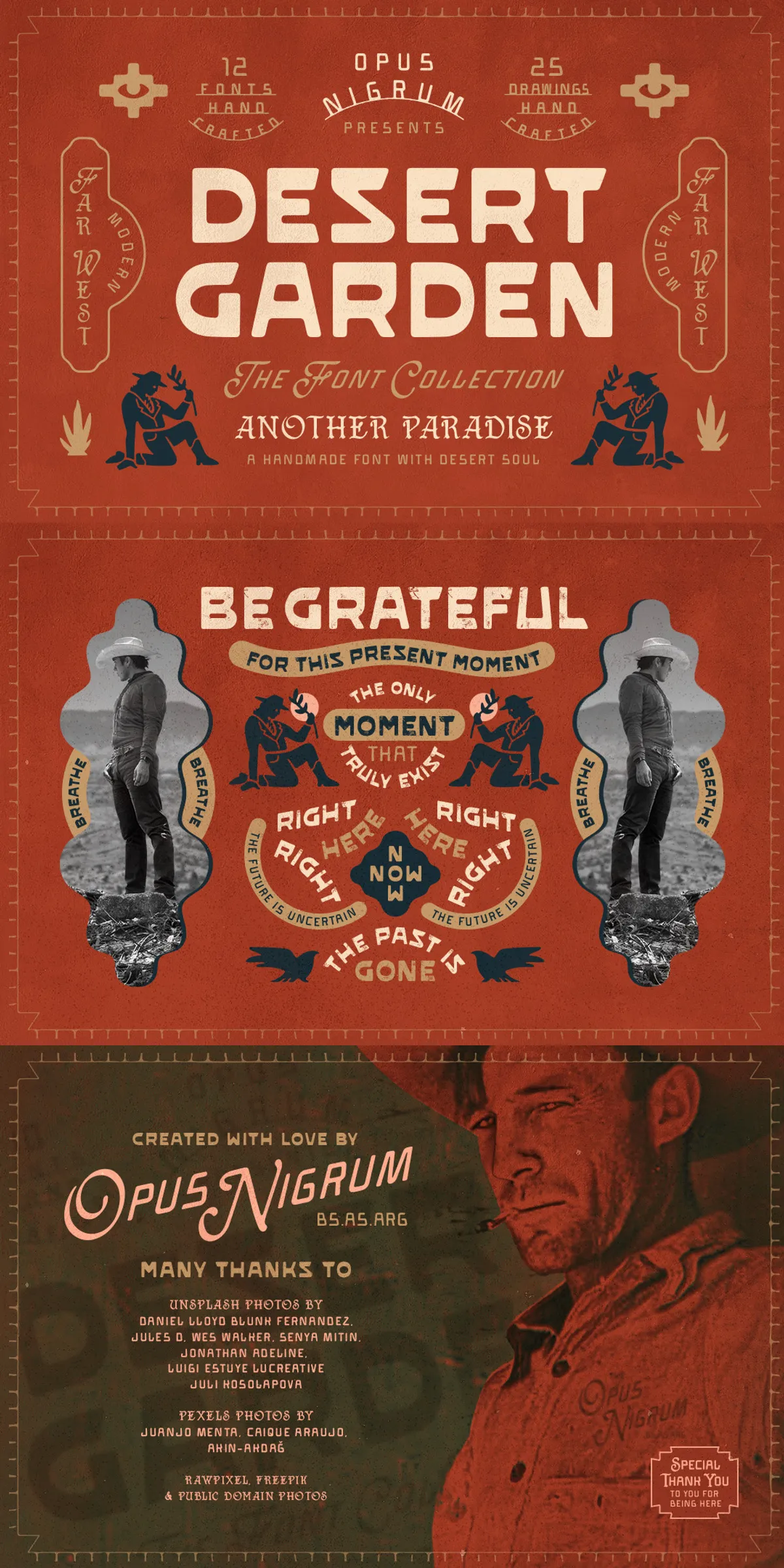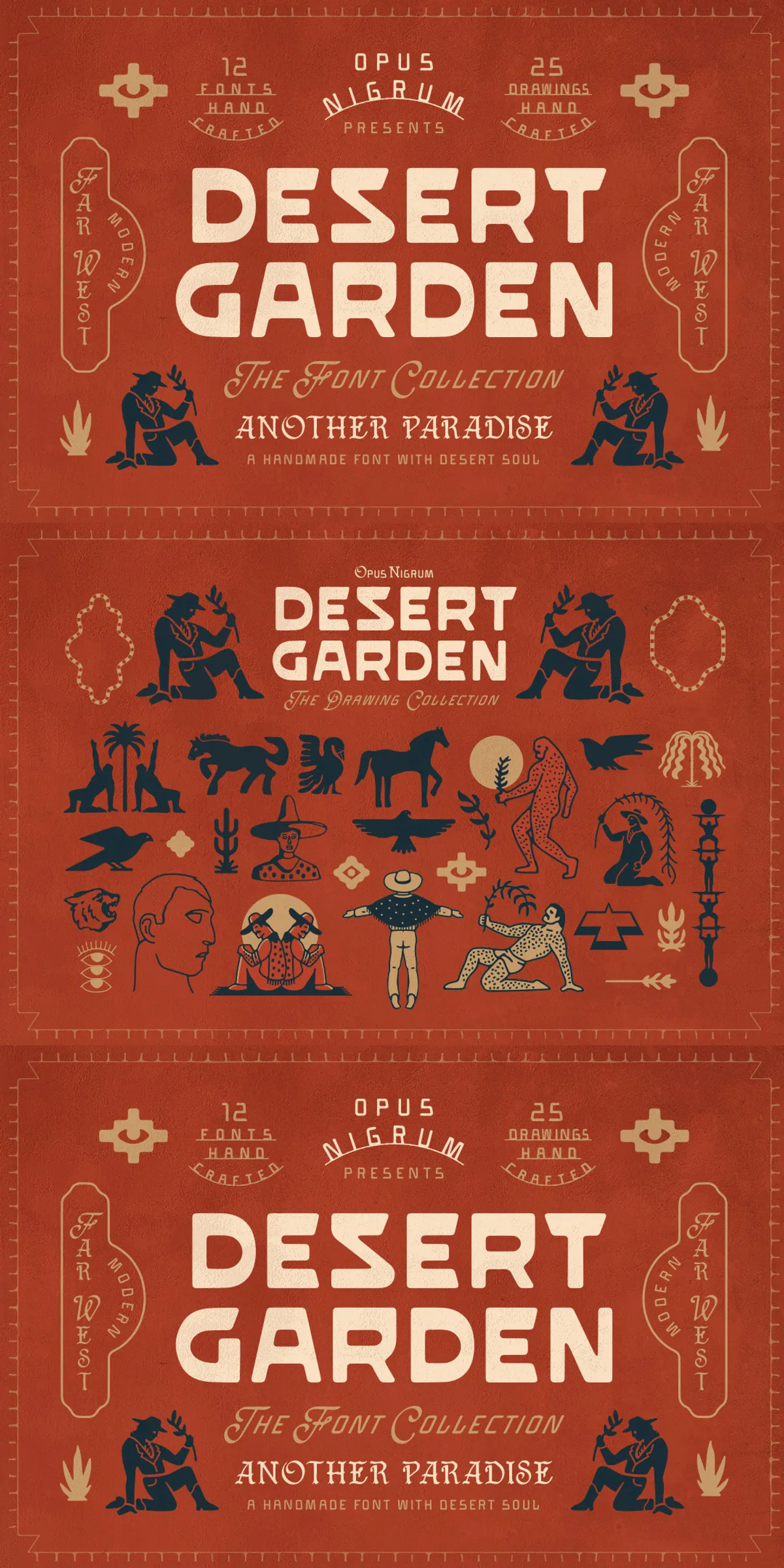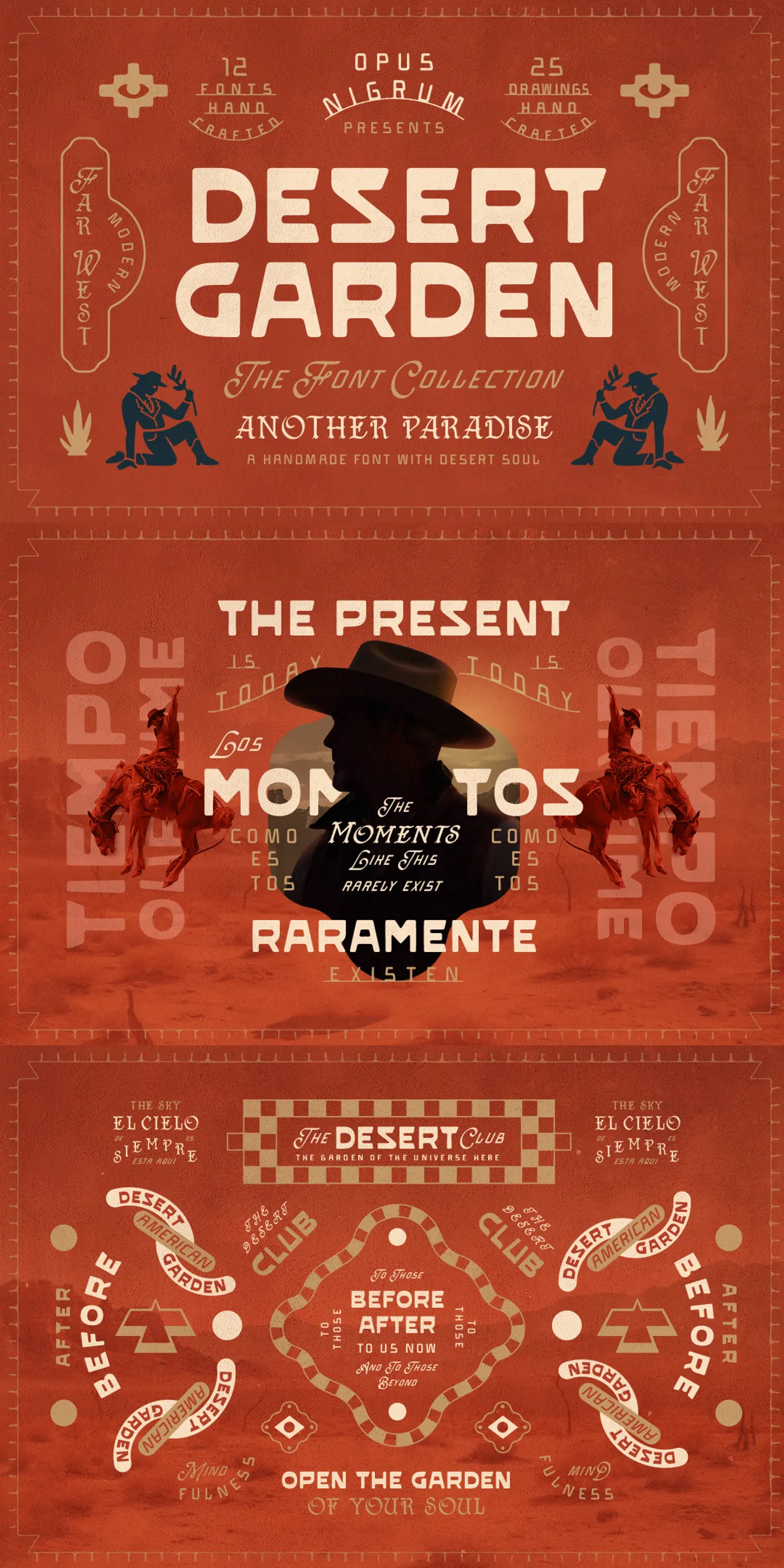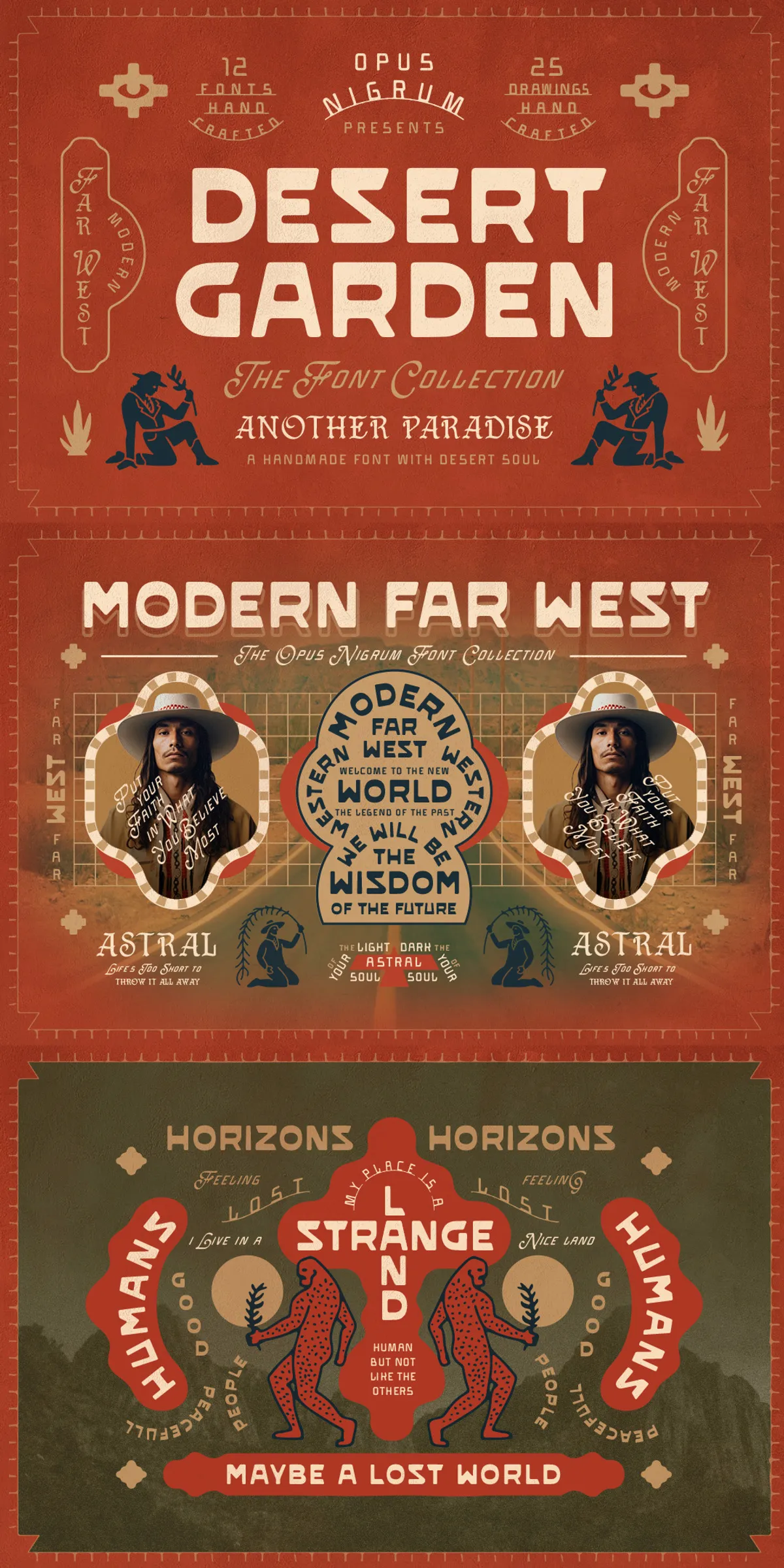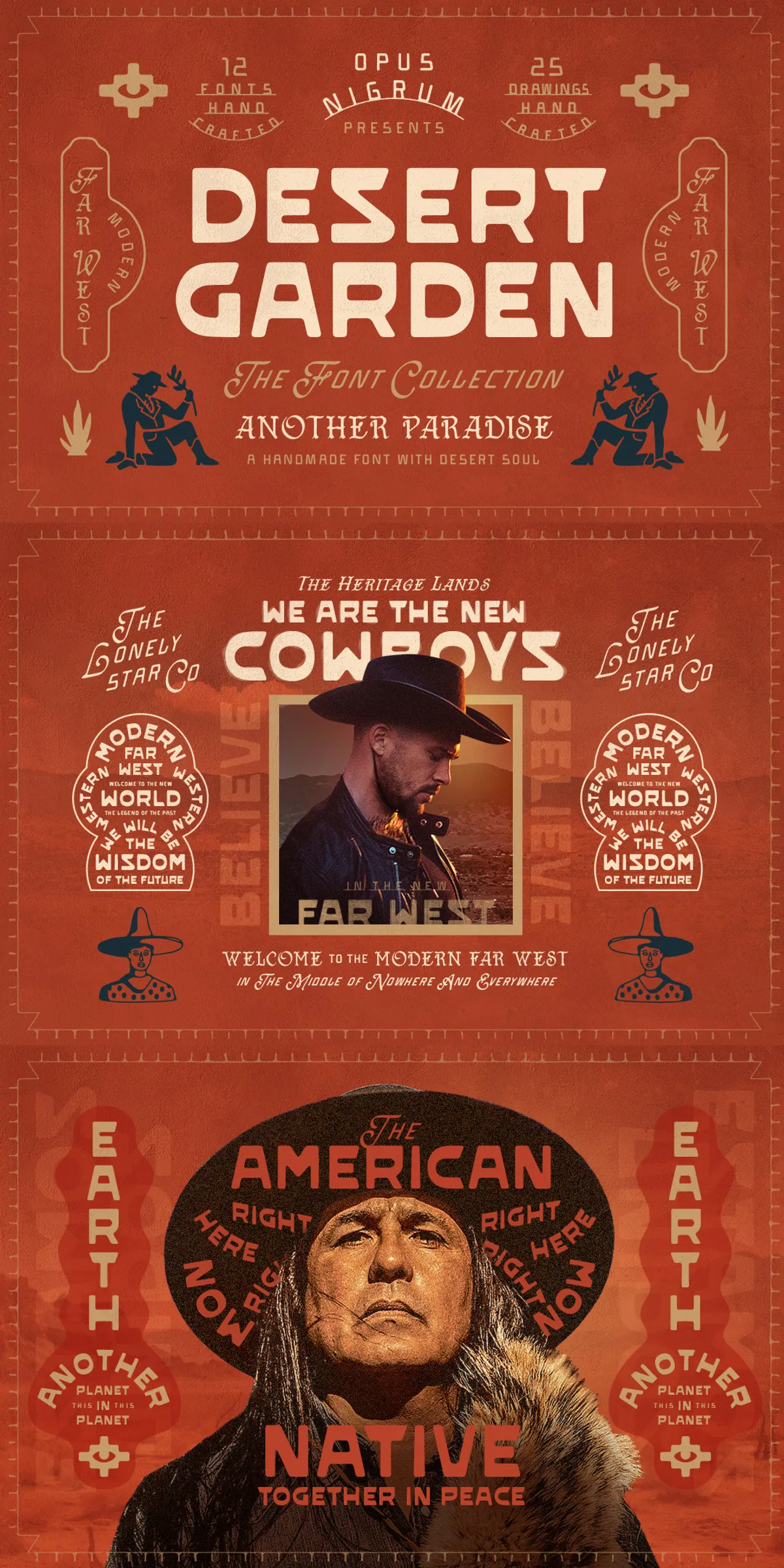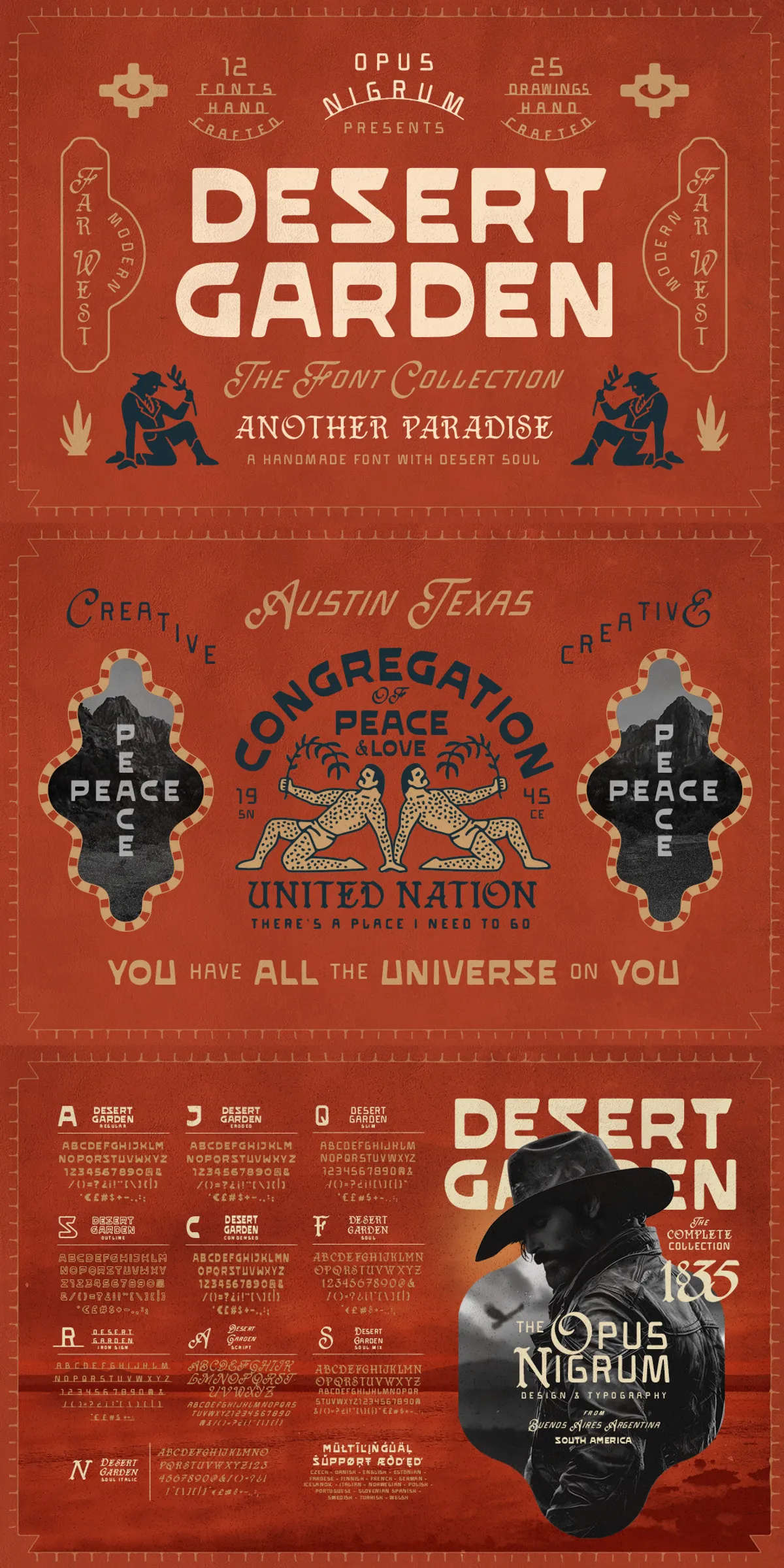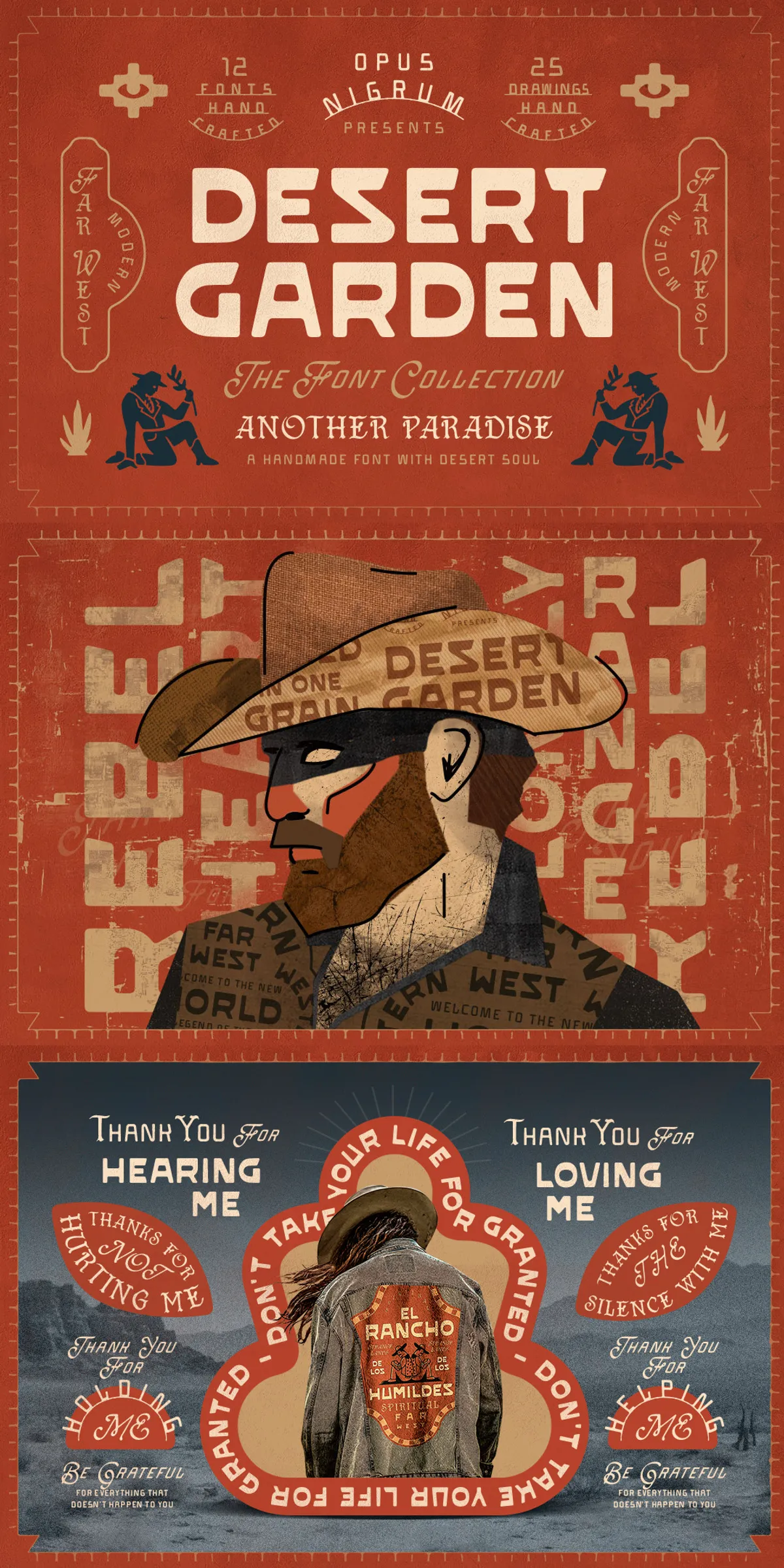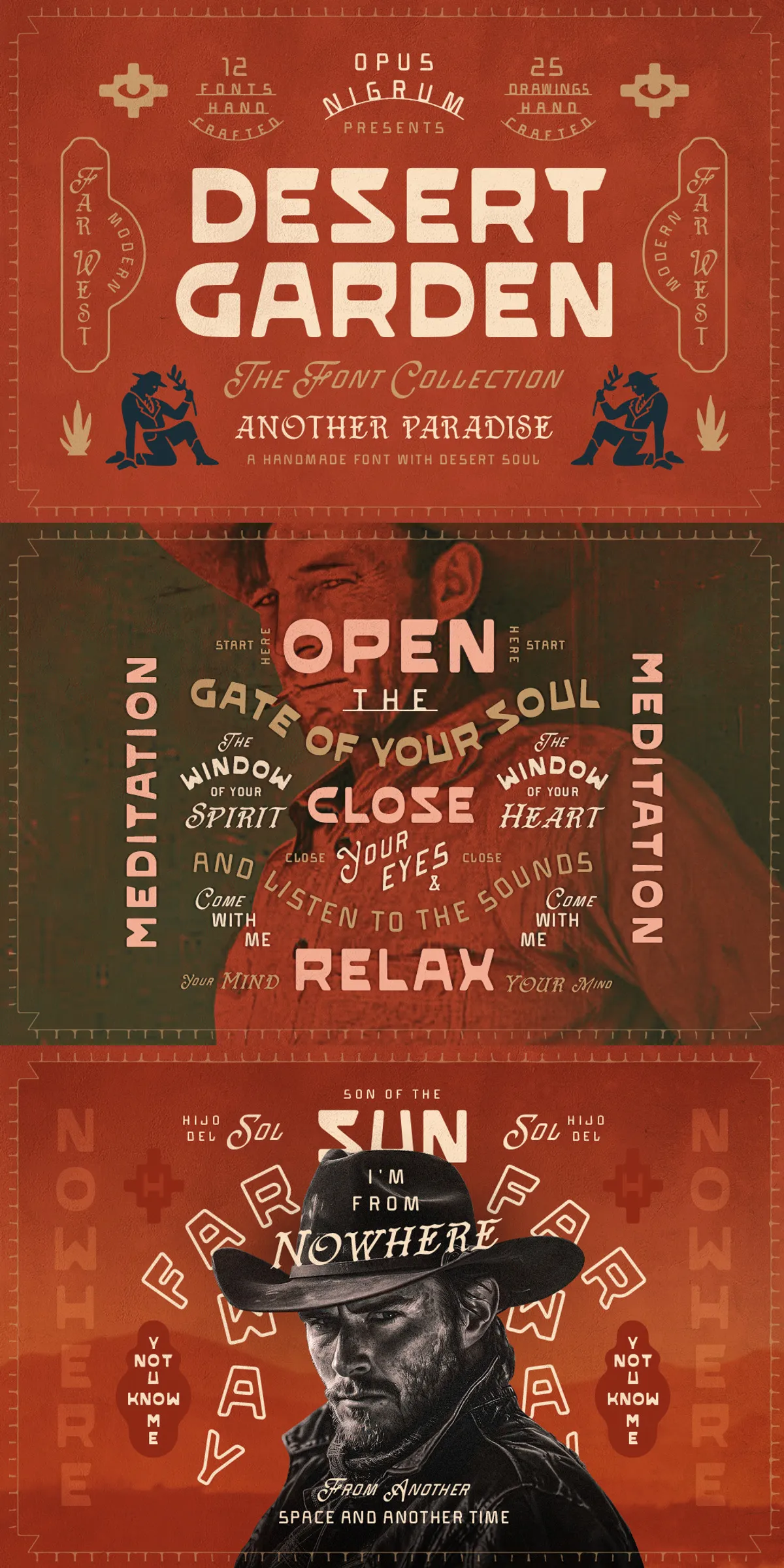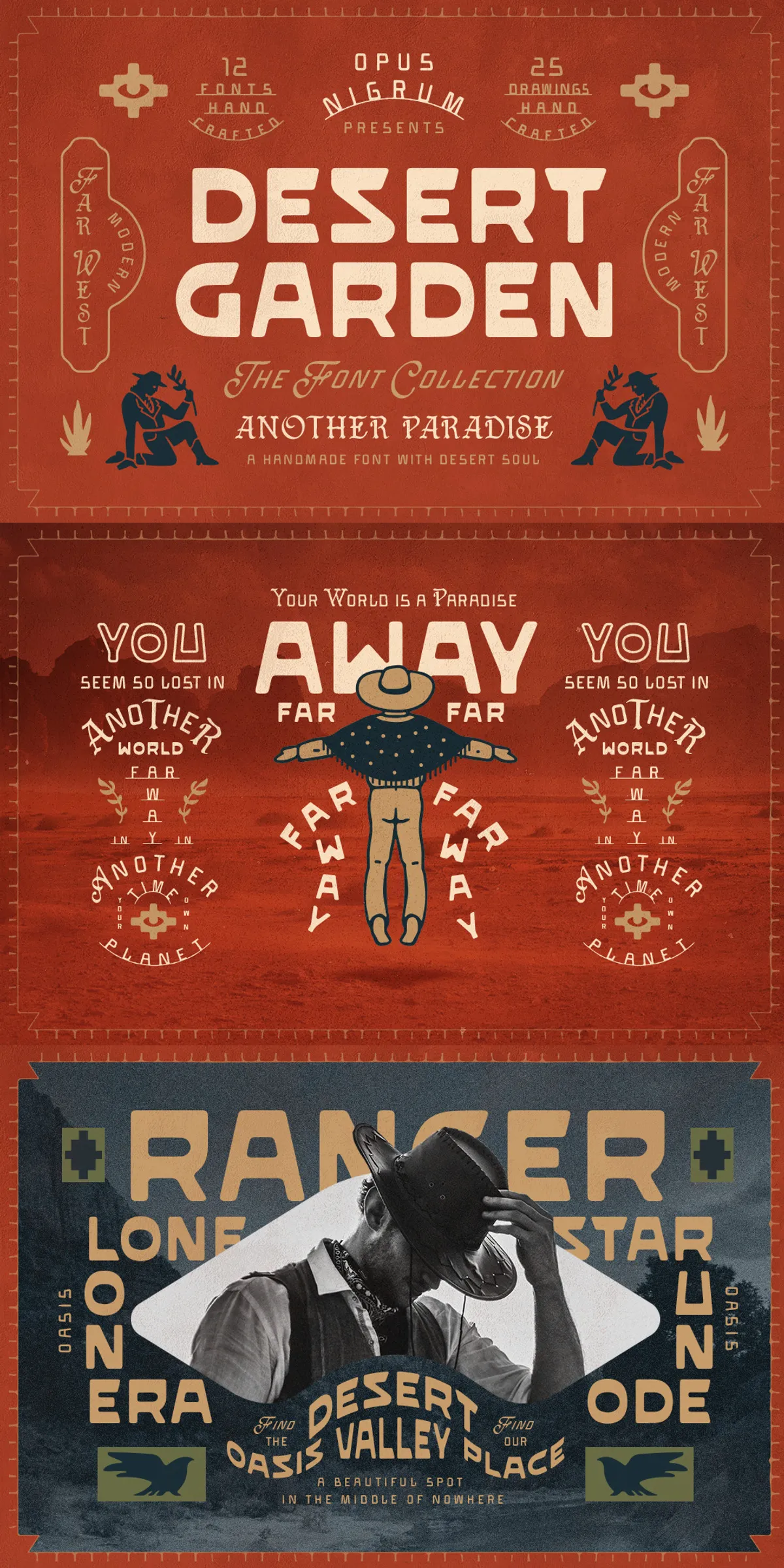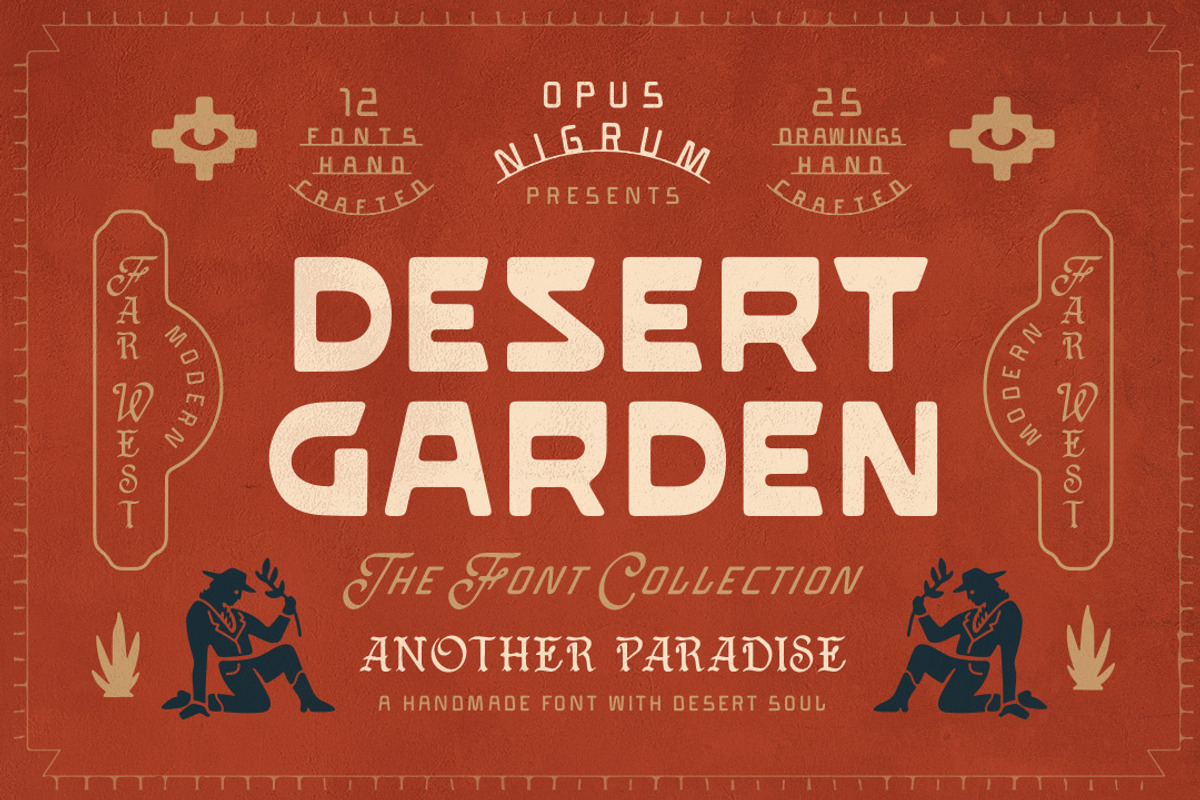
Step into the heart of the arid plains and sun-bleached landscapes with Desert Garden — a bold, handmade font collection that captures the gritty elegance of the modern far west. More than just a typeface, this collection is a cultural narrative written in letters: raw, soulful, and deeply rooted in the spirit of the American desert, the legacy of the Mexican borderlands, and the rebirth of old-west values with new meaning. From mezcal labels to roadside signs, from frontier storytelling to contemporary branding, Desert Garden speaks with authenticity and purpose.
Forge Your Brand with the Spirit of the Southwest
Born from the Dust, Crafted with Purpose
Desert Garden is not a product — it’s a movement. Inspired by weathered wooden signs, hand-painted storefronts, and the quiet wisdom of desert life, this font family was designed to reflect resilience, identity, and community in motion. Each style draws from real-life references: cactus spines, adobe walls, Spanish colonial architecture, and the quiet strength of new-generation cowboys — not the romanticized version, but the one who builds, creates, and connects.
Unlike digital fonts that feel sterile, Desert Garden thrives in imperfection. Subtle variations in stroke weight, hand-sketched flourishes, and deliberate spacing give every letter a heartbeat, a history, a presence. This is typography that doesn’t just spell words — it narrates a journey.
Master the Power of 11 Unique Typeface Variants
From Raw to Refined: A Full Font Family for Every Project
With 11 distinct styles, Desert Garden gives you unmatched creative freedom to shape your message with precision. Each variant tells a different story, yet all belong to the same lineage. Use them together or individually — the choice is yours.
- Desert Garden Regular — The foundational voice. Clear, confident, and grounded in tradition. Perfect for headlines, body text, and branding that speaks with authority.
- Desert Garden Eroded — Weathered by time and wind. Ideal for vintage posters, historical branding, or any design that needs character with soul.
- Desert Garden Outline — Minimalist yet powerful. Great for logos, icons, and clean, modern layouts with a retro touch.
- Desert Garden Condensed — Tightly packed, bold, and unapologetically strong. Use for attention-grabbing headlines and space-saving layouts.
- Desert Garden Mix — A hybrid style combining elements of hand-drawn brushwork and geometric precision. Perfect for packaging and editorial design.
- Desert Garden Script — Elegant, flowing, and expressive. Use for invitations, labels, and designs requiring a personal, handwritten touch.
- Desert Garden Slim — Narrow and sharp, like the silhouette of a distant cactus. Ideal for minimalist branding and clean typography.
- Desert Garden Iron Sign — Refined metalwork. Designed to mimic forged iron signs — perfect for café menus, beer labels, and rugged branding.
- Desert Garden Soul — Deeply expressive, with emotional weight behind every stroke. Use for storytelling projects, music branding, and emotional visuals.
- Desert Garden Soul Italic — A flowing counterpart to Soul, adding grace and movement. Great for titles and subtitles.
- Desert Garden Soul Mix — A dynamic blend of hand-drawn and structured forms — ideal for expressive editorial and digital designs.
Visual Storytelling Power: Drawings & Design Templates Included
Designed for Global Expression, Rooted in Cultural Depth
Multi-Language Support for Cross-Cultural Storytelling
Desert Garden understands that stories belong to everyone. With full support for 20 languages — including Czech, Danish, English, Estonian, Faroese, Finnish, French, German, Icelandic, Italian, Norwegian, Polish, Portuguese, Slovenian, Spanish, Swedish, Turkish, and Welsh — this font family bridges cultures and communities through shared visual language. Whether you’re designing a bilingual menu, a festival flyer, or a global brand campaign, Desert Garden carries your message with authenticity across borders.